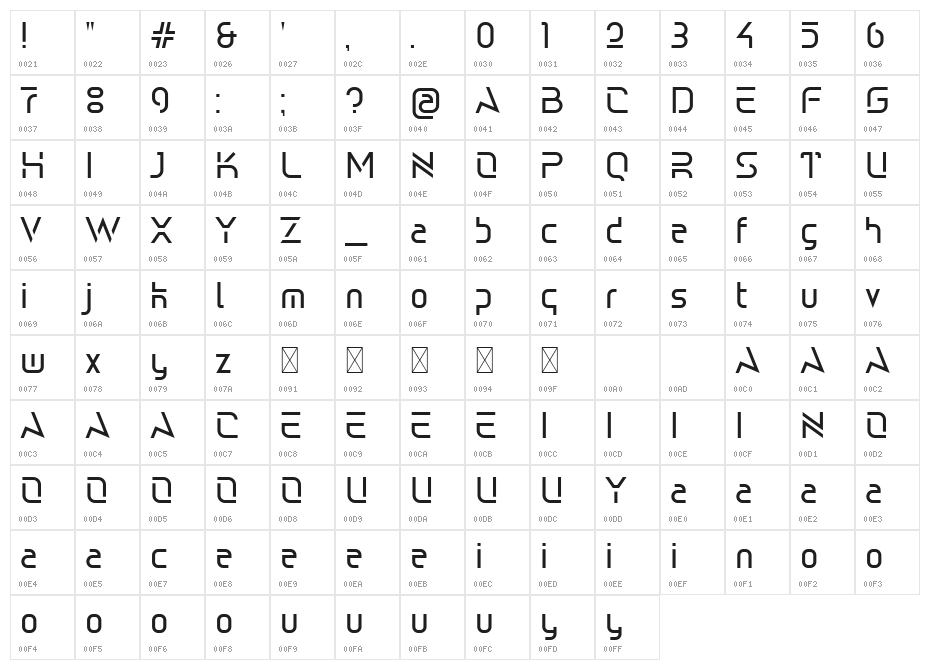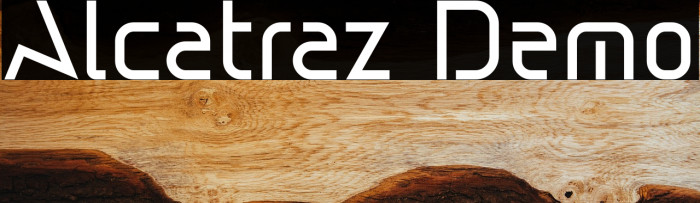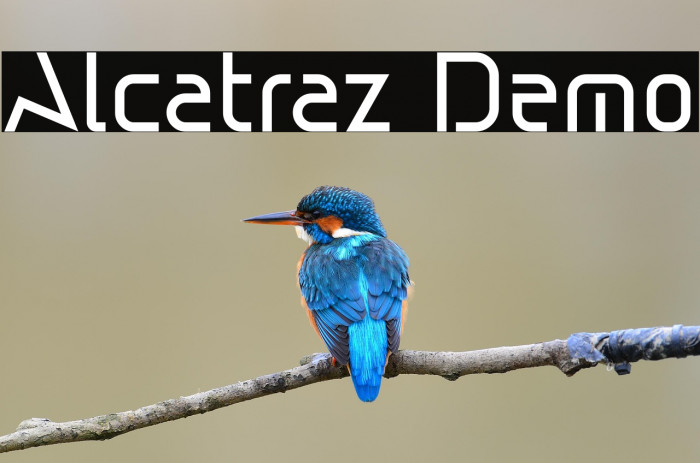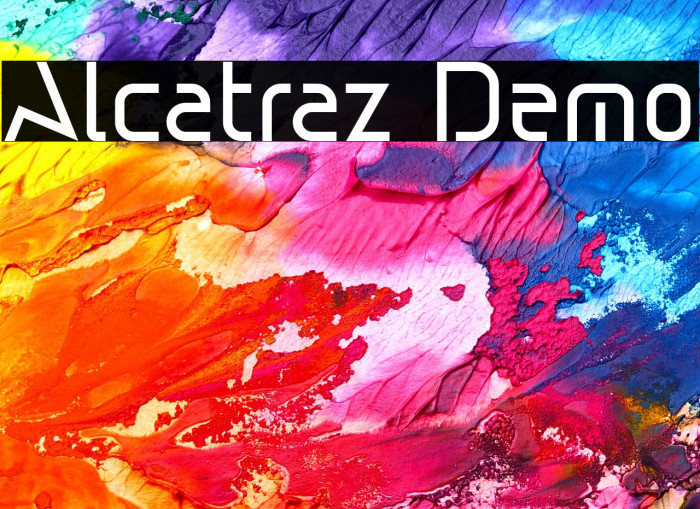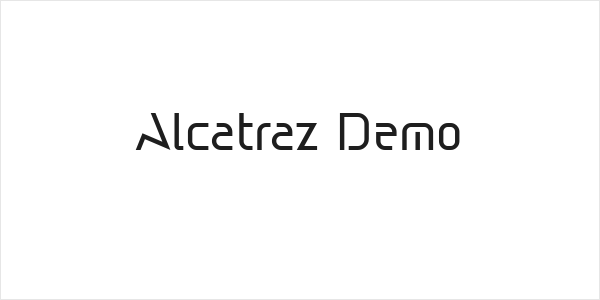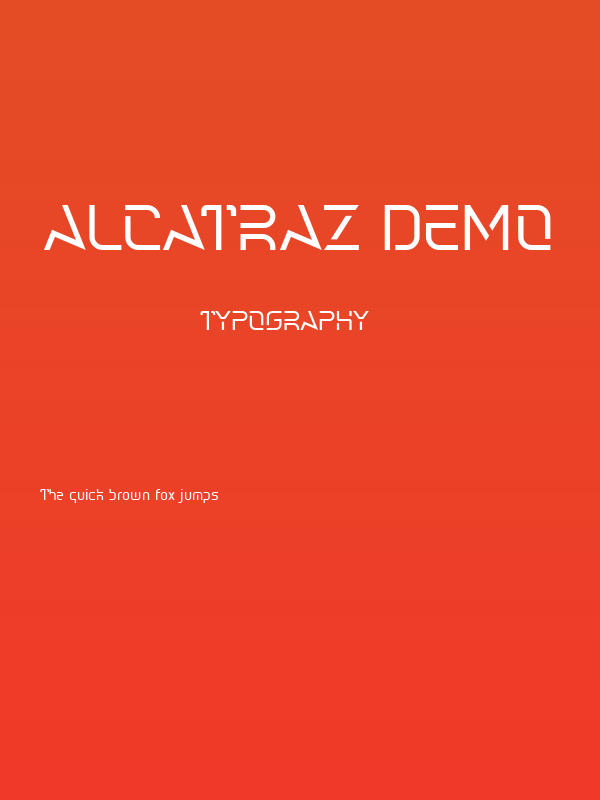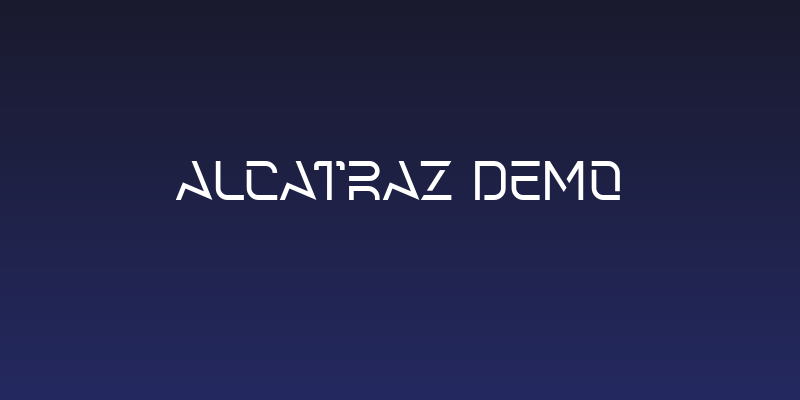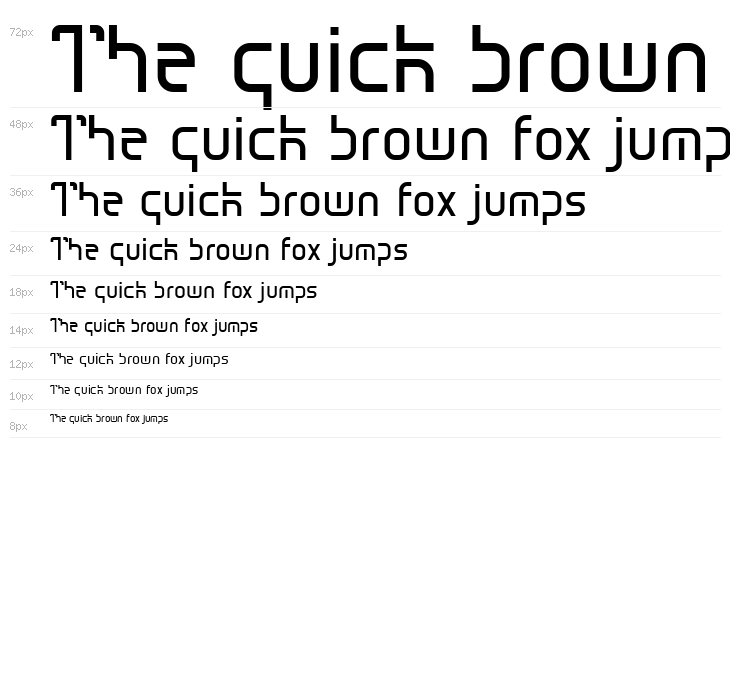
Alcatraz Demo Font
Alcatraz Demo Description
This font features a futuristic and geometric design, characterized by its sharp angles and clean lines. The uppercase letters have a distinct, angular appearance, while the lowercase letters maintain a more rounded, yet still geometric form. The numbers and special characters follow the same design principles, creating a cohesive and modern look. The font's style is bold and eye-catching, making it suitable for various creative applications. Its unique design elements make it stand out, offering a fresh take on traditional letterforms.
| Proposed Projects | Ideal for sci-fi themed projects, modern branding, tech-related designs, and innovative product packaging. |